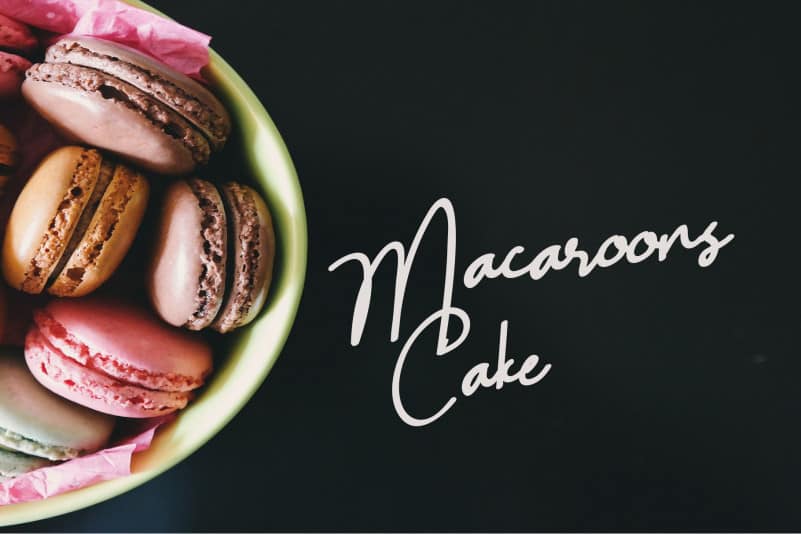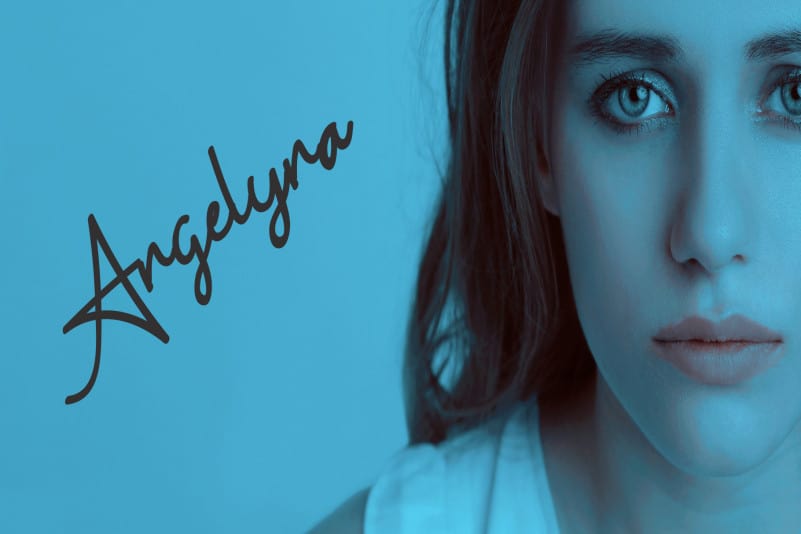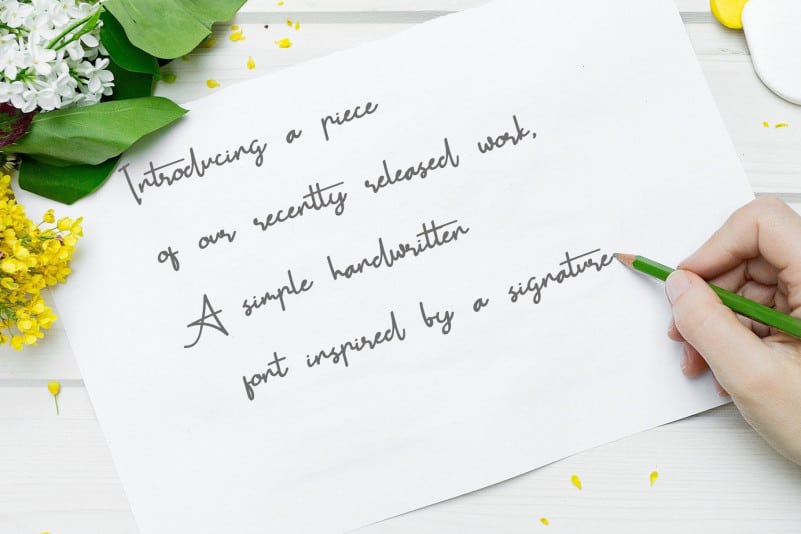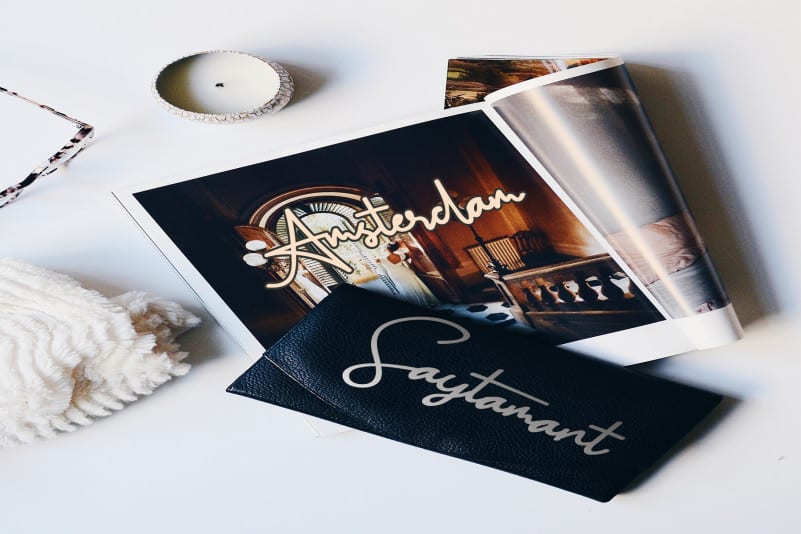
Amsterdam Handwritten Font
Amsterdam Handwritten Font is a lovely and timeless handwritten font. It is the best choice for creating eye catching logos, branding and quotes. Every letter has a unique and beautiful touch, which will make your design come alive!